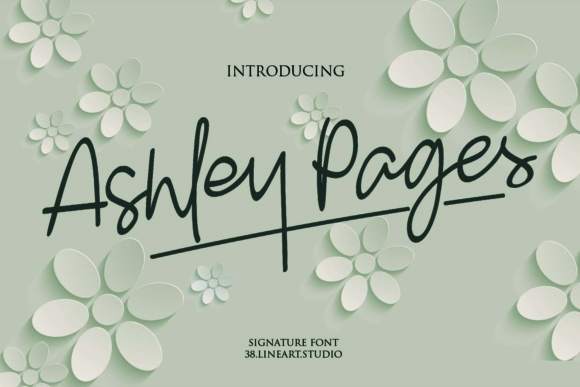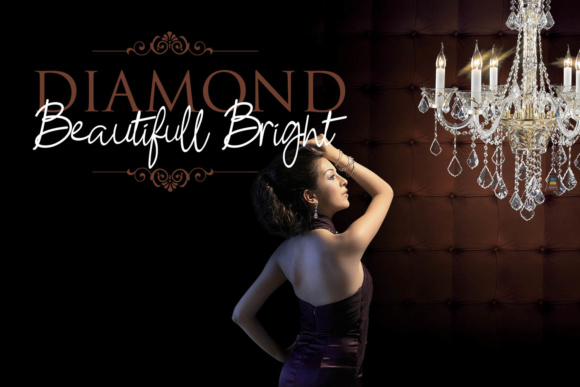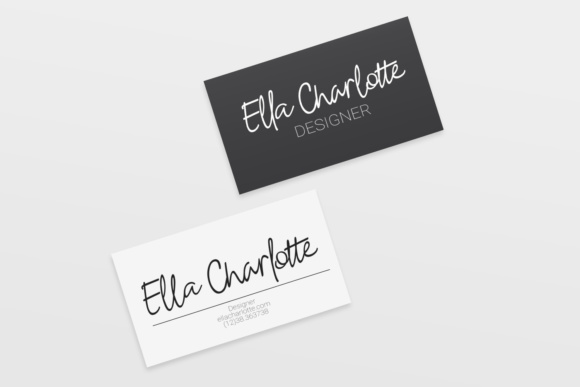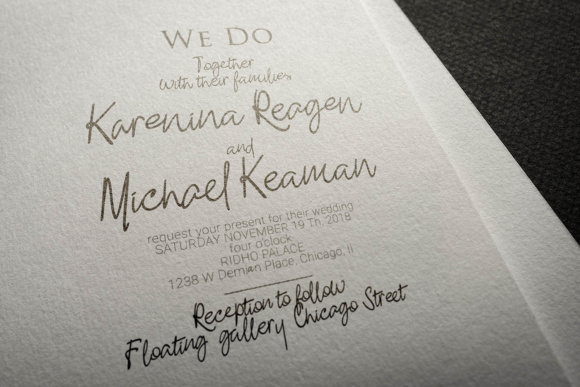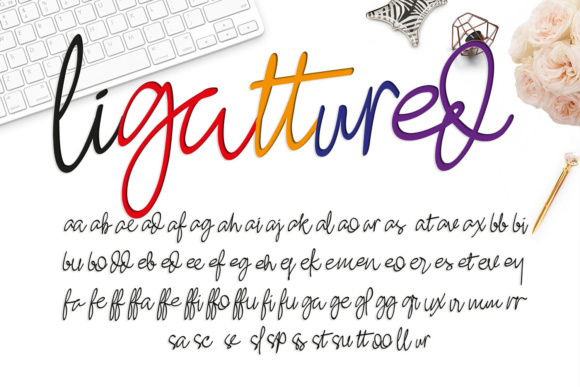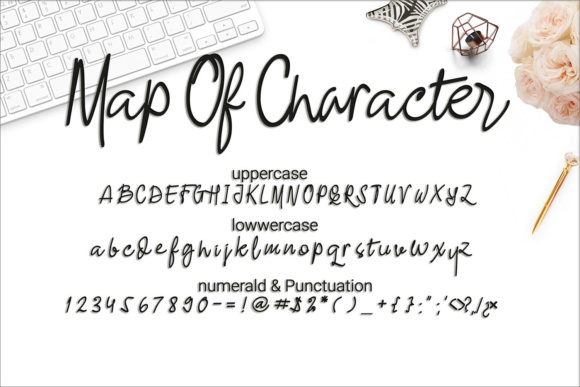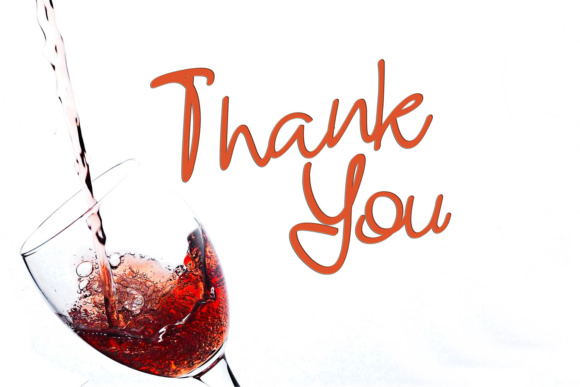
Ashley Pages Font
About Ashley Pages Font
Ashley Pages is an elegant script font, perfect for giving your designs a handwritten feel. This signature font is flexible and looks at home in modern and hipster designs, but can add some class to invitationals and print publications.